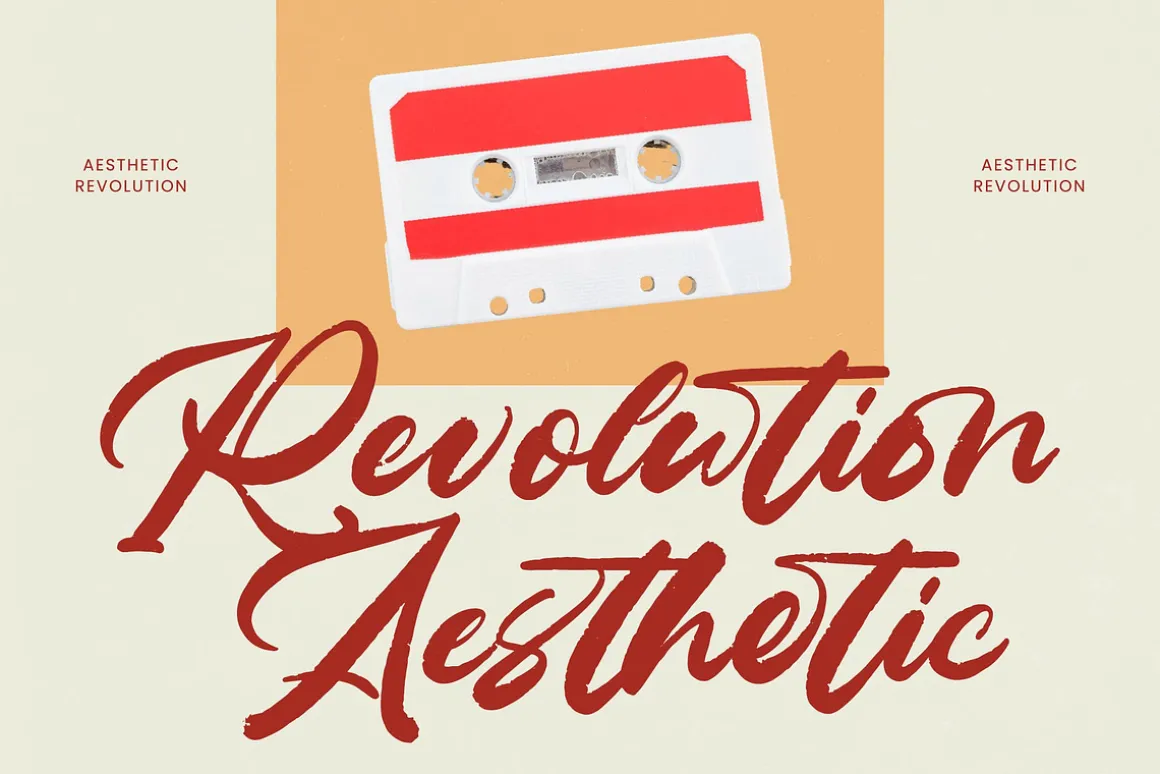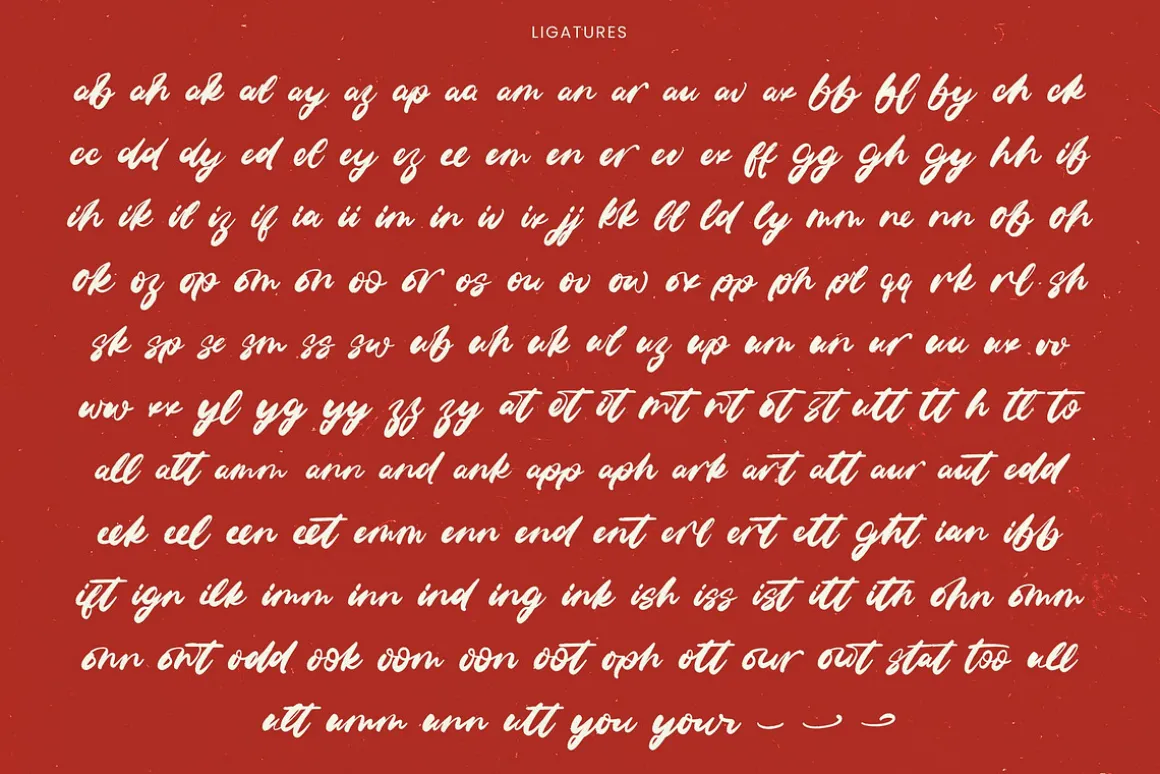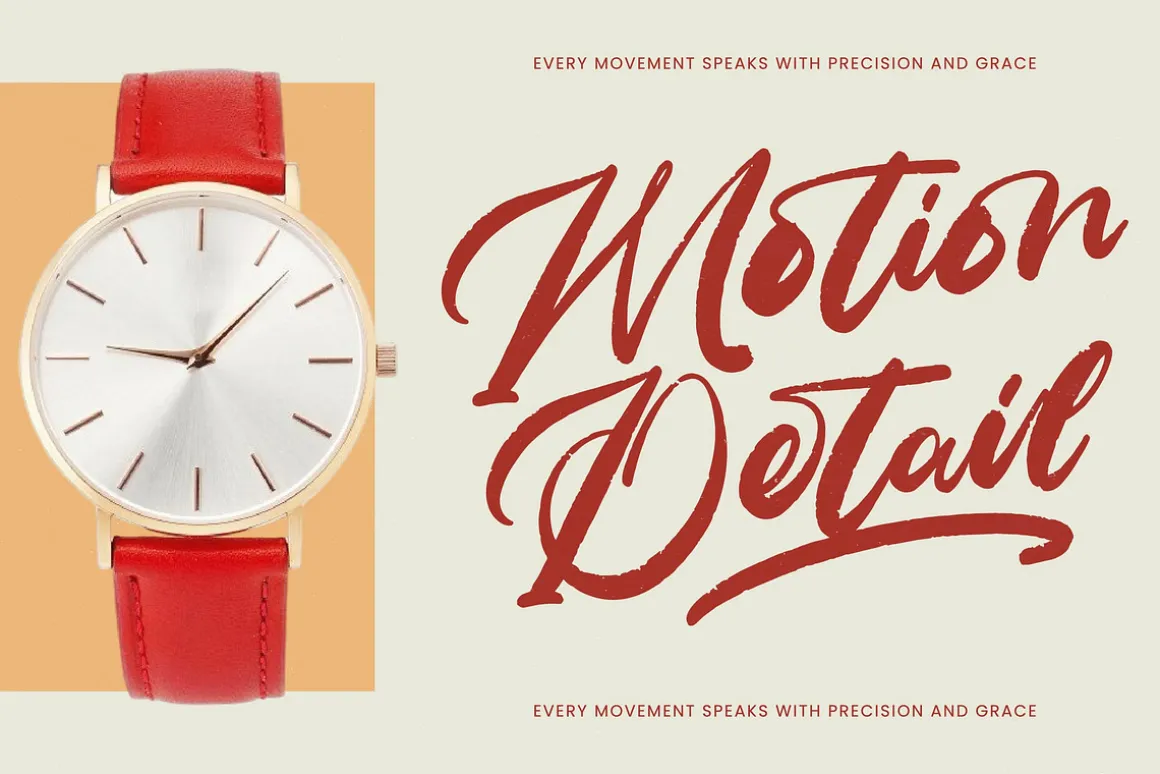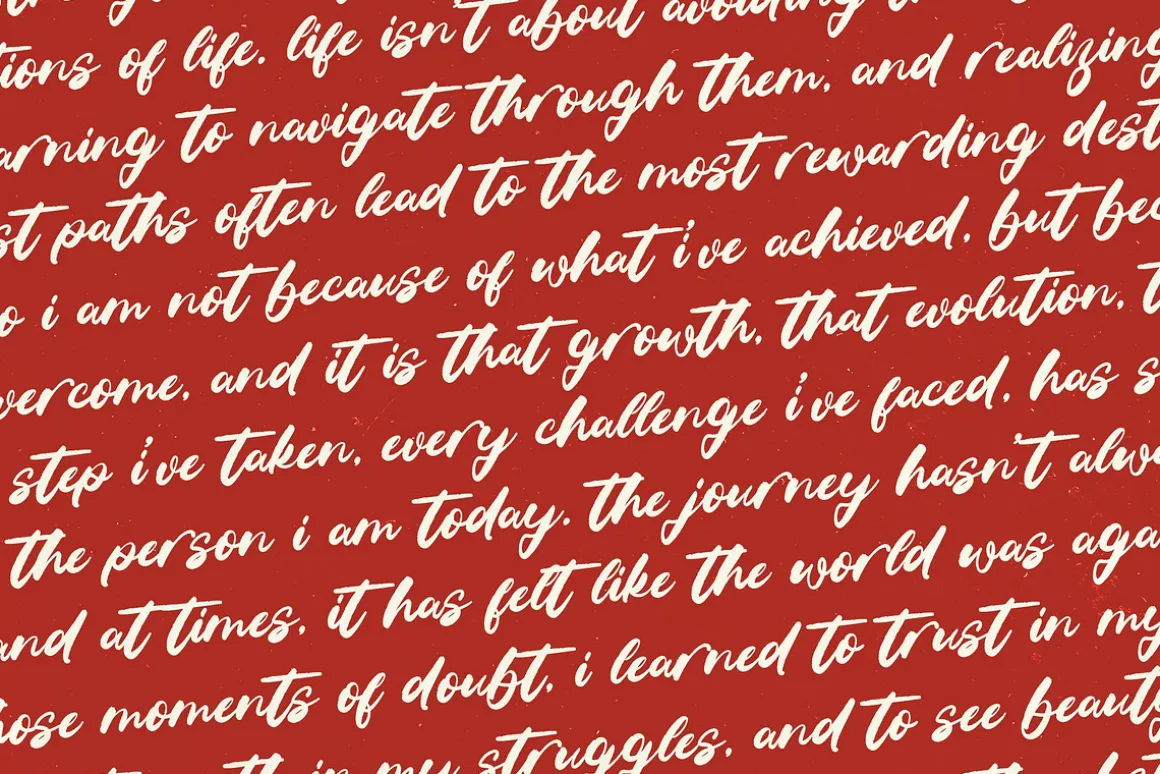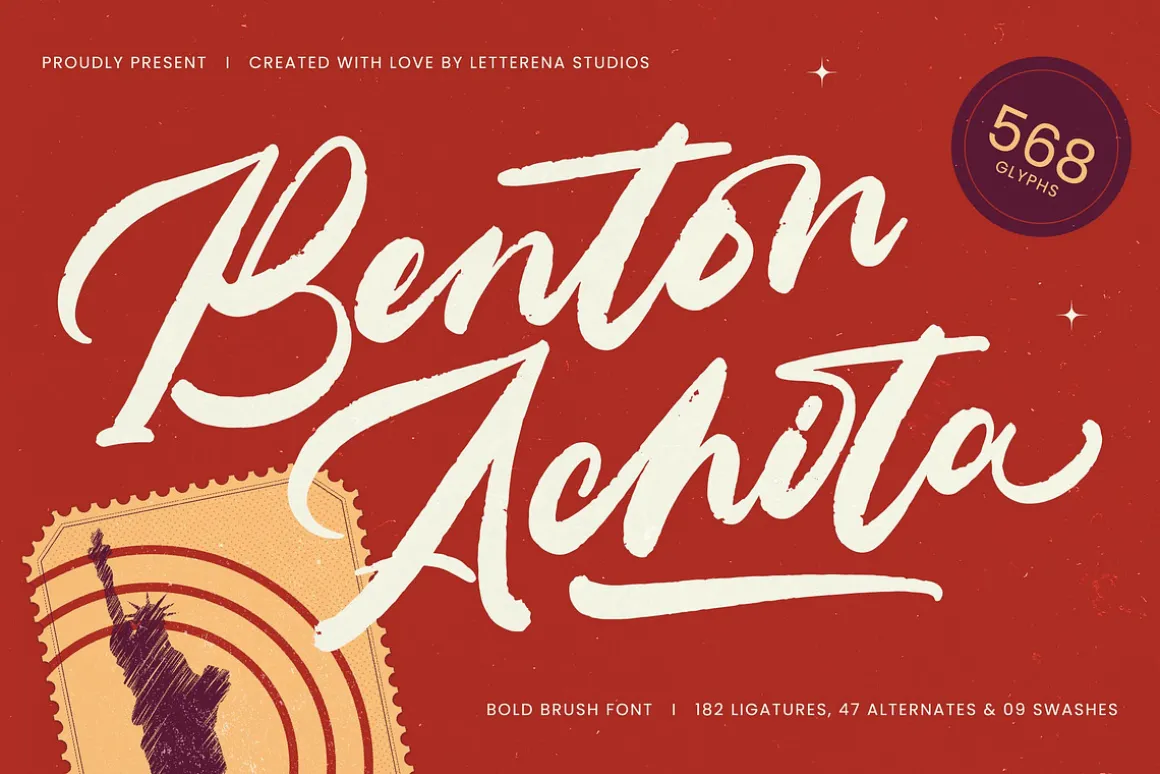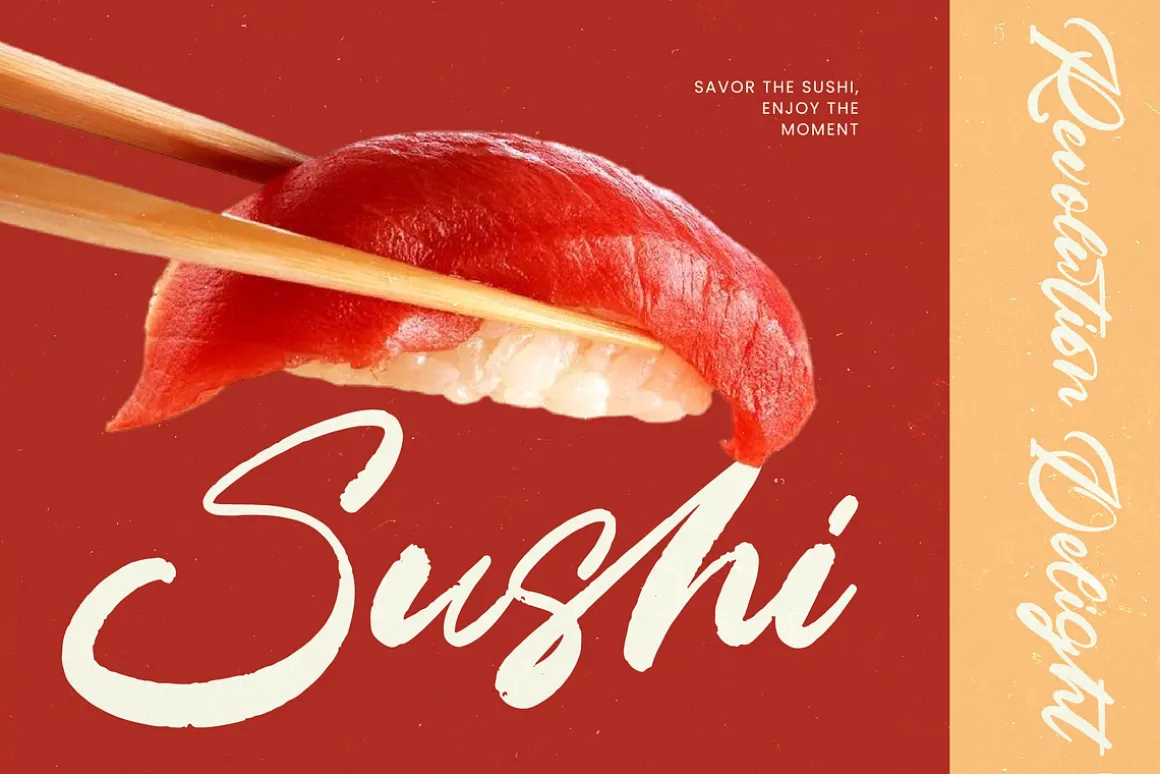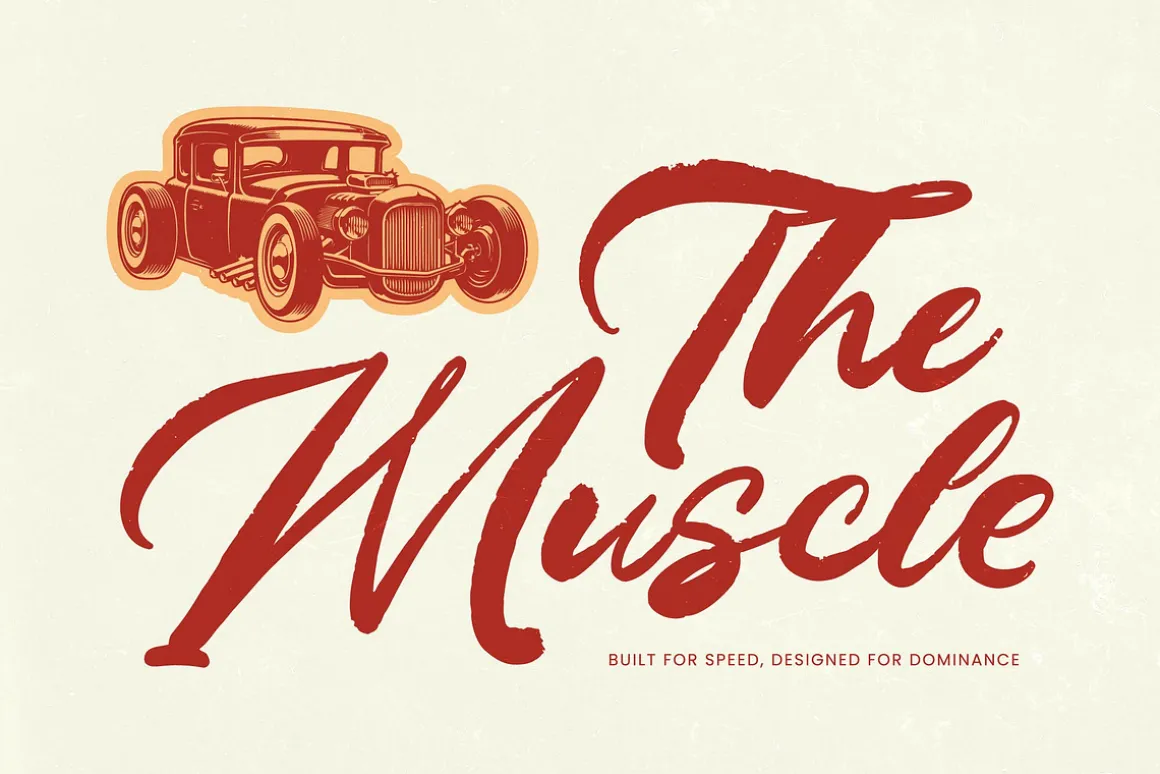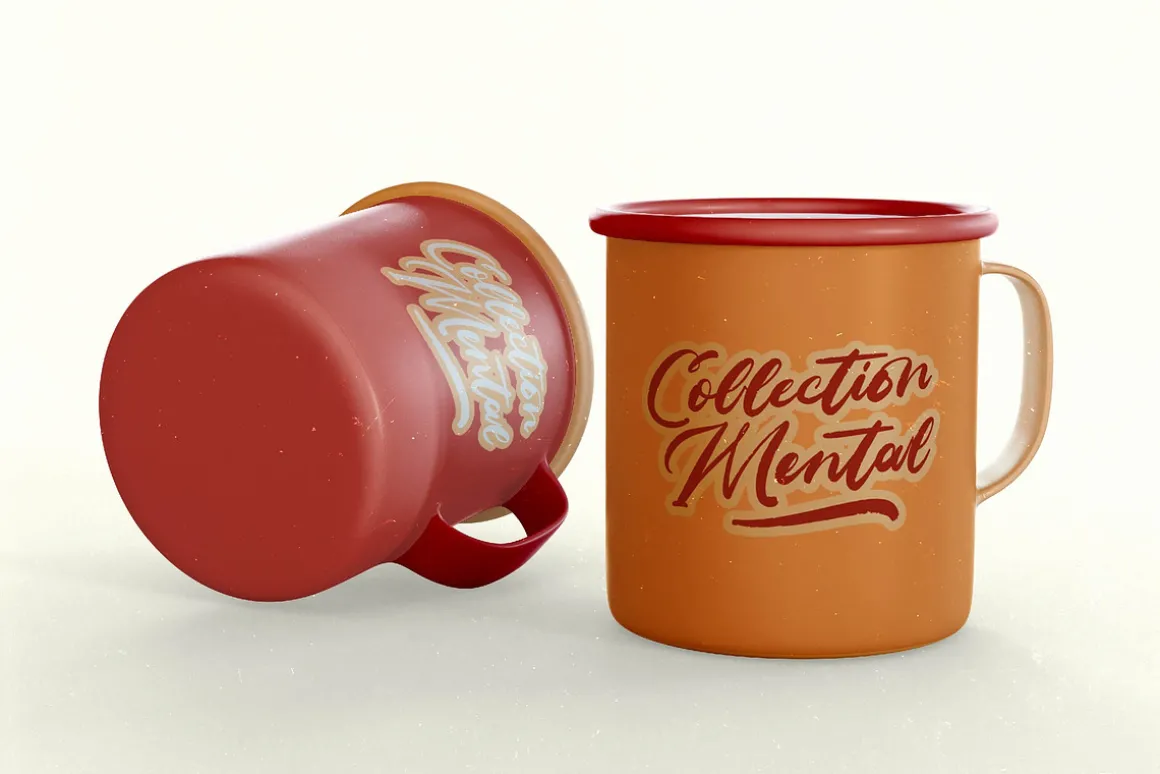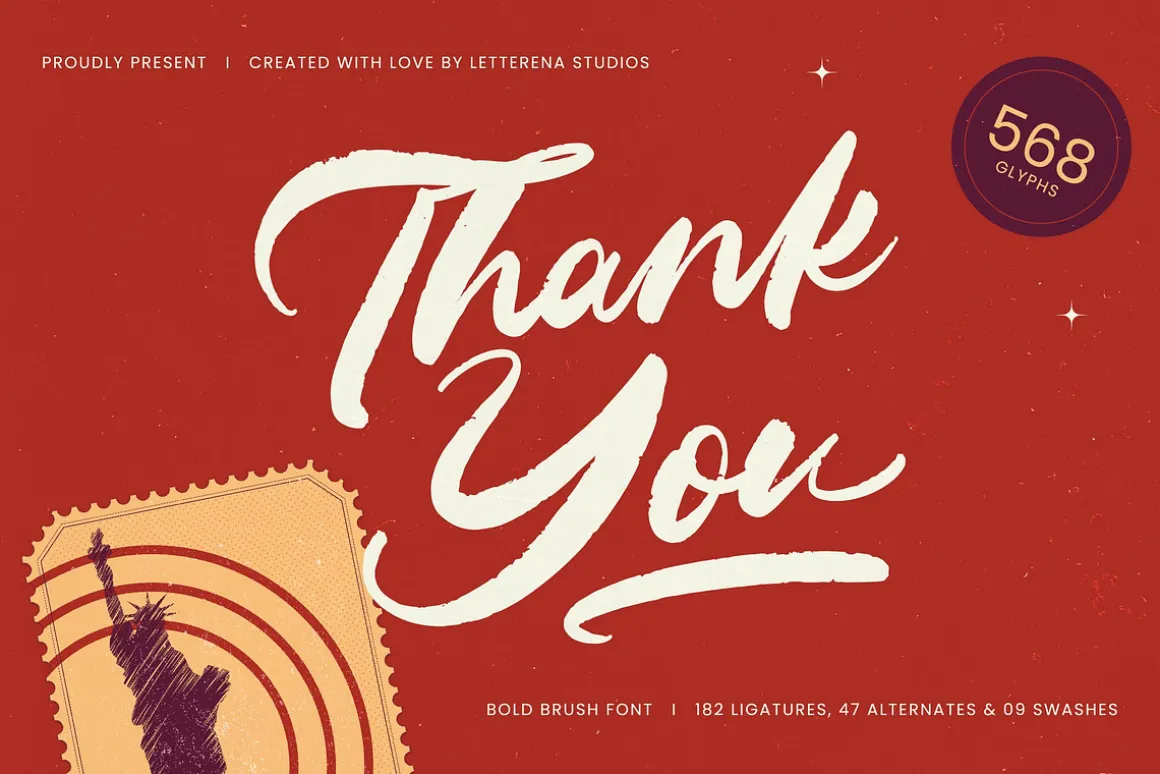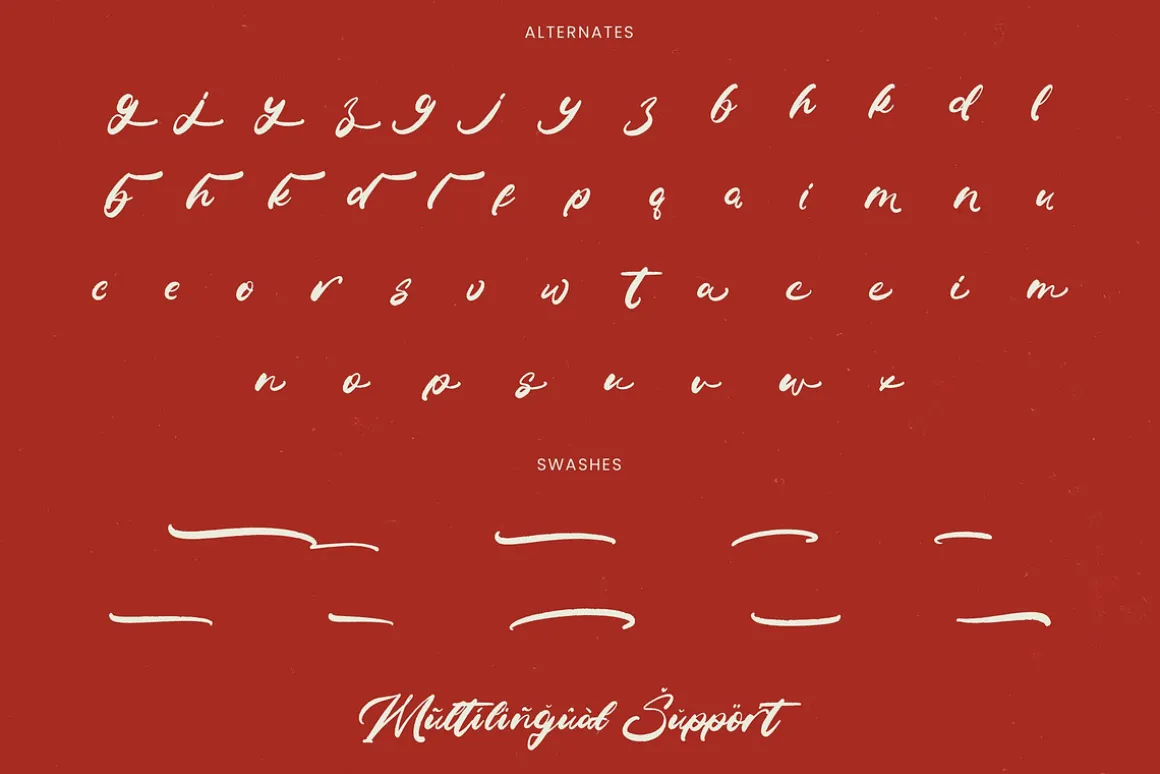
Benton Achita – Bold Brush Font , from Letterena, is a Luxury Script font, suitable for any projects such as: logos, branding projects, homeware designs, product packaging, mugs, quotes, posters, shopping bags, t-shirts, book covers, name card, invitation cards, greeting cards, label, photography, watermark, special events, and all your other luxury and beautiful projects that need a Luxury Script taste.
- 182 Ligature 47 Alternate & 09 Swashes
- Uppercase and Lowercase
- Numerals
- Punctuations (OpenType Standard)
- Accents (Multilingual Characters)
- Ligatures and Alternative Style Stylistic Set